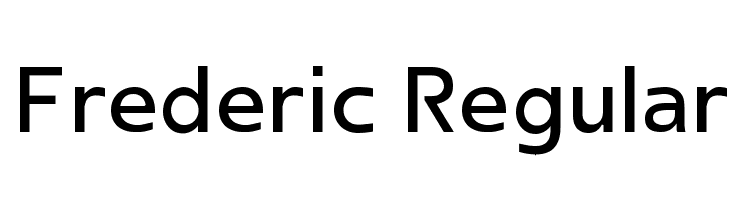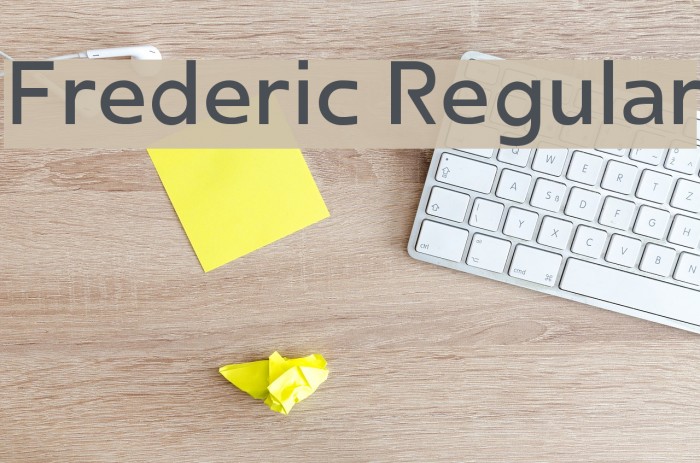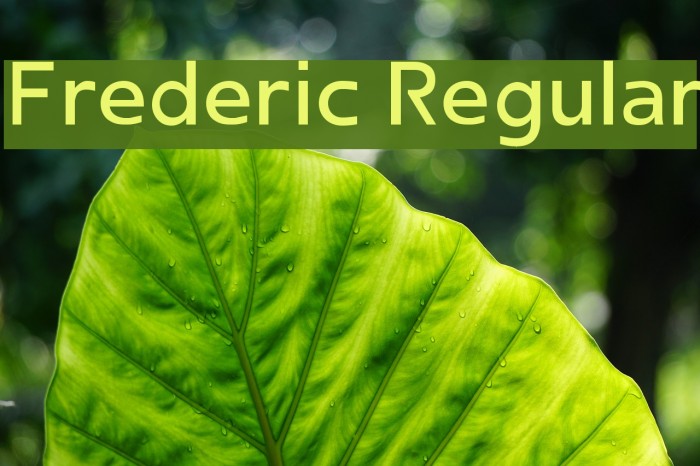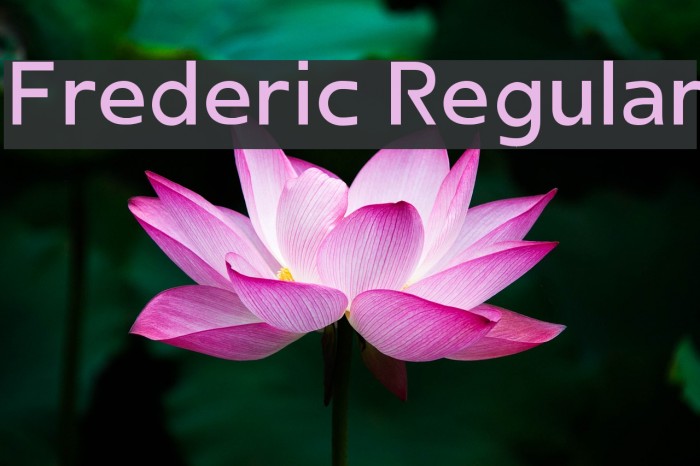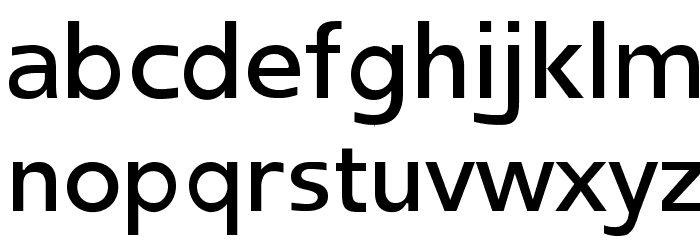
Frederic Regular Font
Frederic Regular Description
This font features a clean and modern sans-serif design, characterized by its geometric shapes and uniform stroke widths. The uppercase letters are bold and assertive, while the lowercase letters maintain a consistent and harmonious flow. The numerals are clear and easily distinguishable, making them suitable for various applications. Special characters are well-defined, adding versatility to the font's use. Overall, this font exudes a contemporary and professional aesthetic, ideal for digital and print media.
A modern sans-serif font with geometric shapes and uniform strokes from Uncategorized fonts.
- Proposed Projects: Ideal for branding, web design, advertising, and editorial projects.